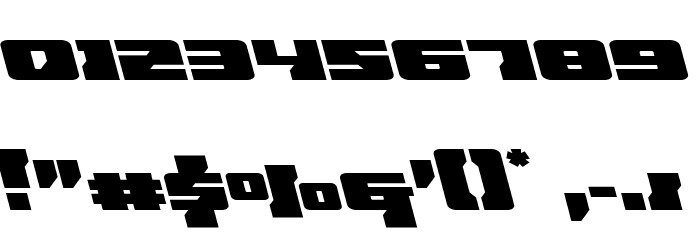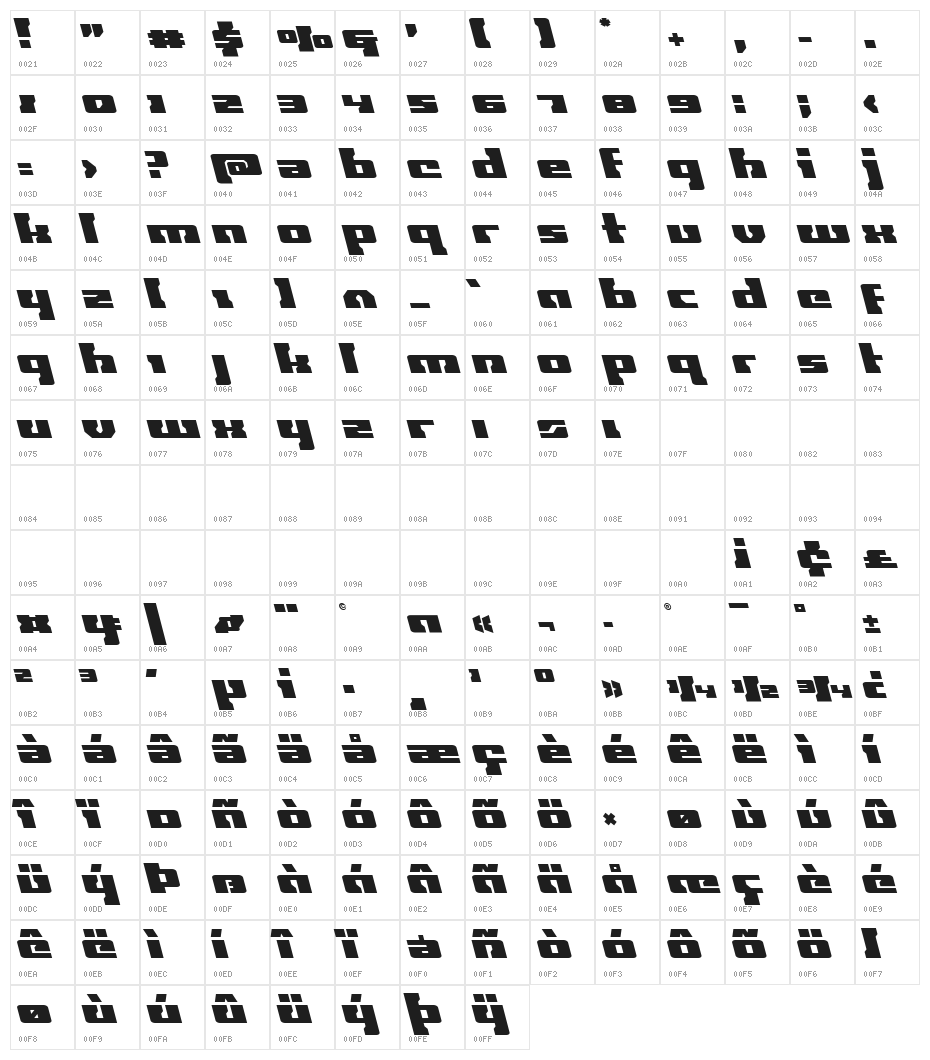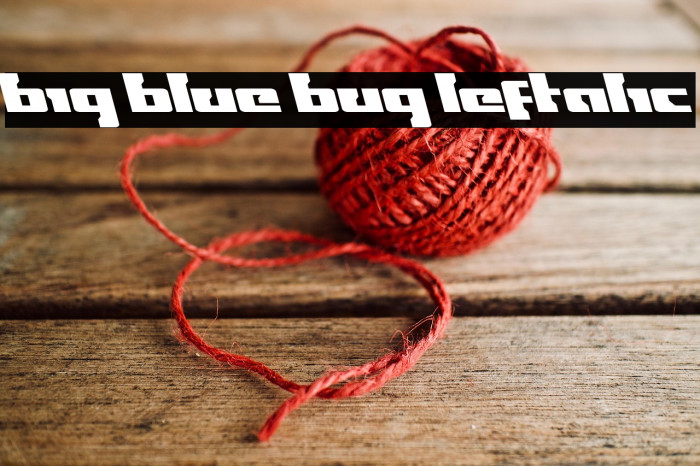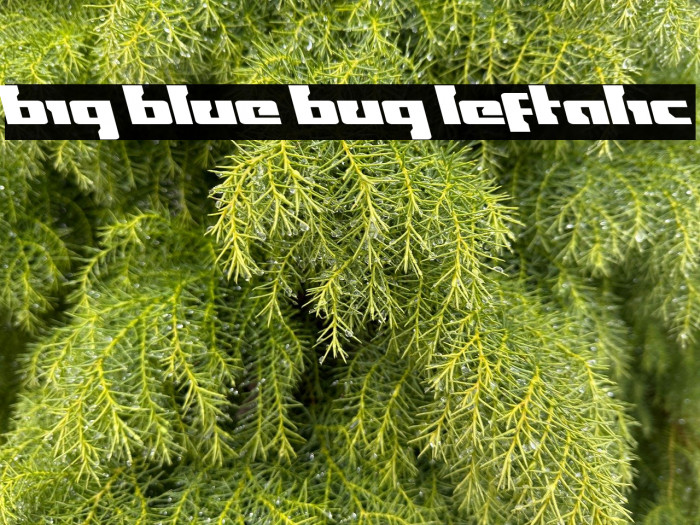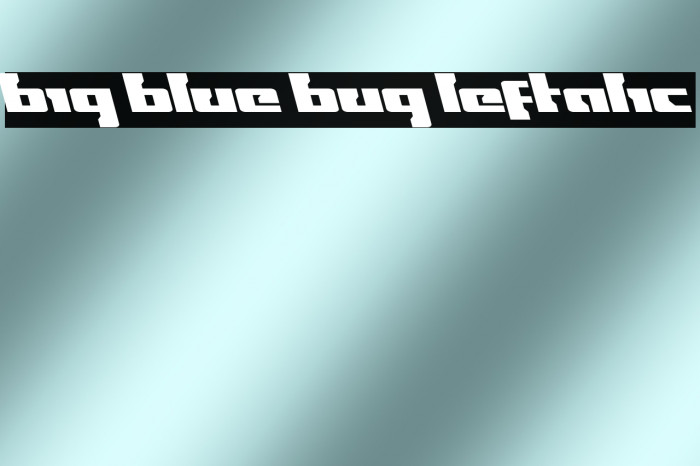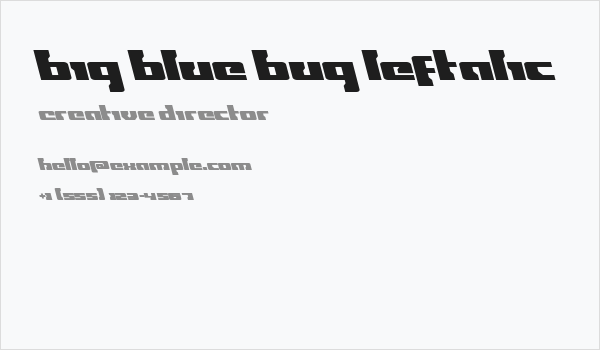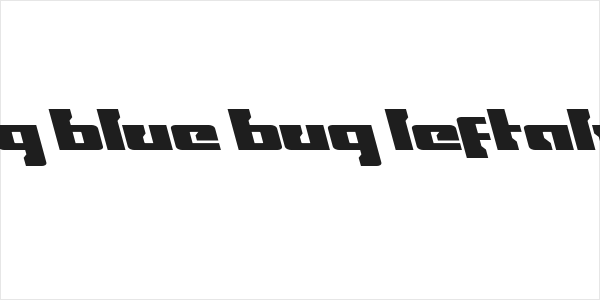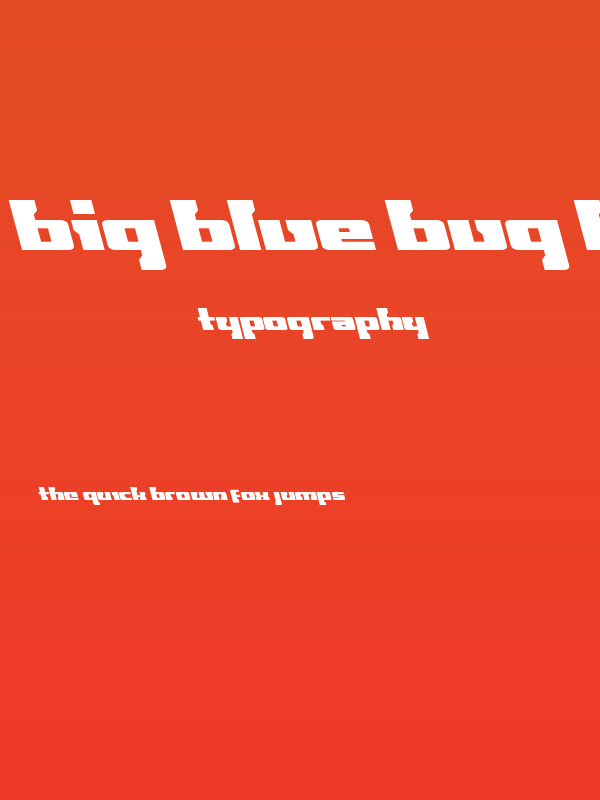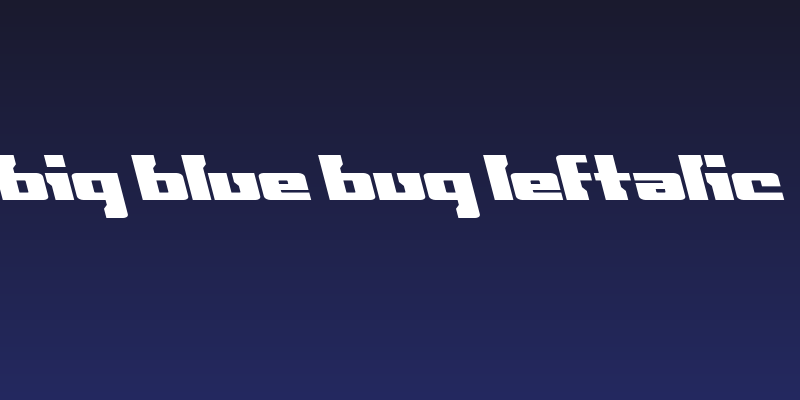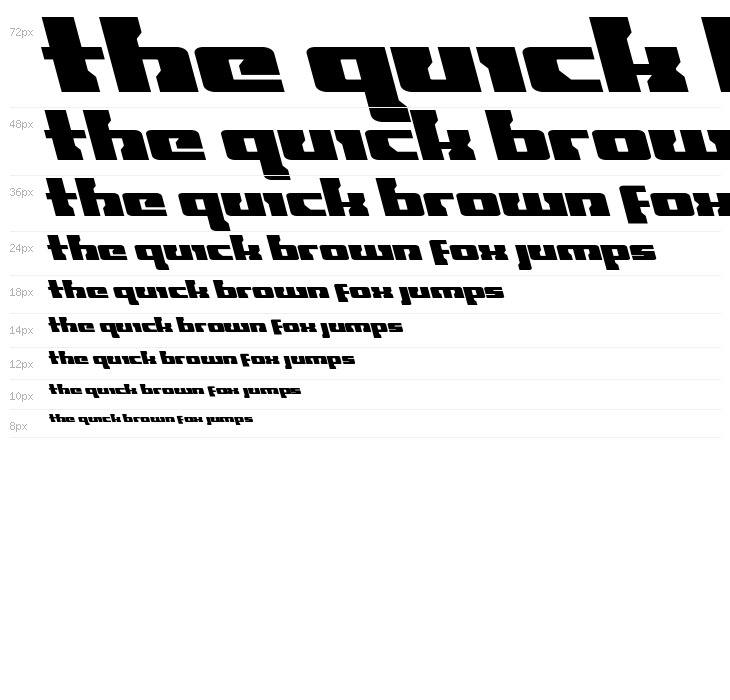
Big Blue Bug Leftalic Font
Big Blue Bug Leftalic Description
This font features a bold and dynamic style with a strong presence. The characters are blocky and angular, giving them a futuristic and industrial feel. The letters are slightly slanted, adding a sense of motion and energy. The uppercase and lowercase letters maintain a consistent design, with sharp edges and a uniform thickness throughout. The numbers and special characters follow the same bold and angular aesthetic, ensuring a cohesive look across all elements. This font is ideal for projects that require a modern and impactful appearance.
| Proposed Projects | Ideal for branding, posters, video game graphics, and any project needing a modern, impactful look. |